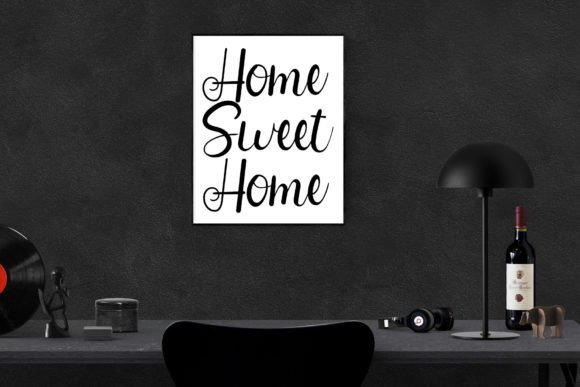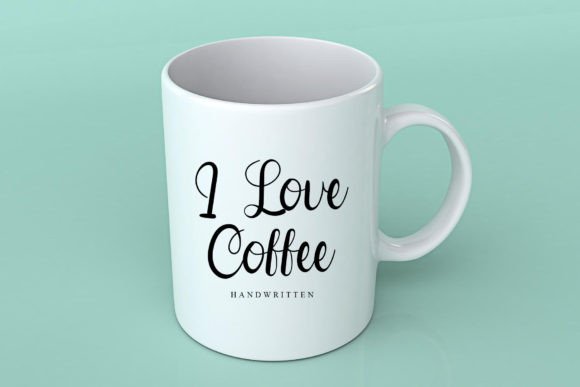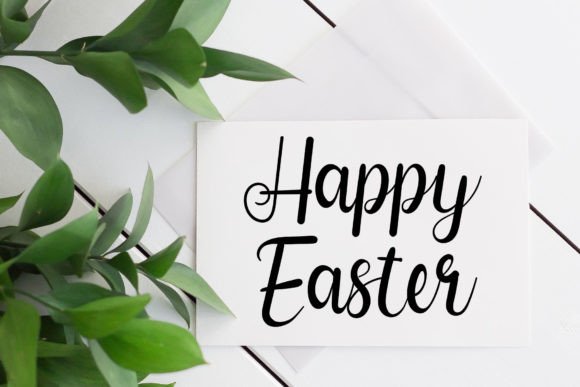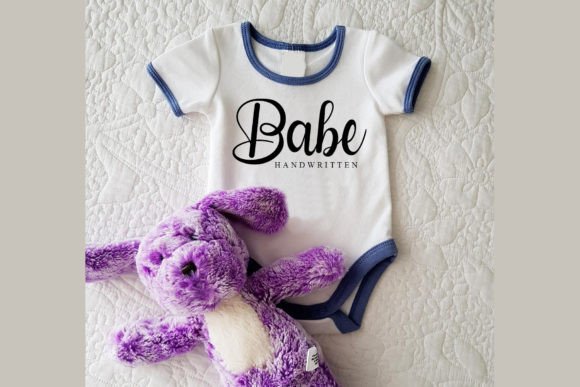
Daughter Font
About Daughter Font
Daughter Font is a beautiful handwritten script designed with elegance and care. Featuring a varied baseline and carefully crafted strokes, this typeface brings authenticity and charm to both personal and professional projects. Because of its versatile design, Daughter Font is perfect for wedding invitations, greeting cards, billboards, business cards, logos, and branding.
A Beautiful Handwritten Typeface with Elegance
Handwritten fonts often provide warmth and individuality, and Daughter Font enhances these qualities with a refined and natural flow. Its smooth strokes ensure readability, while its balanced rhythm creates sophistication. Moreover, its versatile design adapts easily to both modern and traditional layouts. As a result, this handwritten script is a dependable option for creatives seeking originality and elegance.
For personal stationery and event projects, Daughter Font is an excellent choice. For example, it can elevate a wedding invitation into a keepsake full of beauty. In addition, it works wonderfully for thank-you cards, birthday greetings, and holiday notes. Because of its elegant curves, every design feels heartfelt, stylish, and memorable.
A Script Typeface for Logos and Branding
Businesses and professionals looking to stand out can rely on Daughter Font. It adds uniqueness and sophistication to logos, labels, and packaging. Furthermore, on social media, it enhances posts, banners, and promotional graphics with an elegant handwritten appeal. When paired with minimalist sans serif fonts, Daughter Font achieves harmony between professionalism and creativity.
Another strength of DaughterFont is its adaptability across mediums. In print, it shines on posters, brochures, magazines, and billboards. Digitally, it elevates websites, blogs, and presentations with authenticity. Since it maintains clarity in both small and large sizes, this handwritten script remains reliable for diverse creative applications.